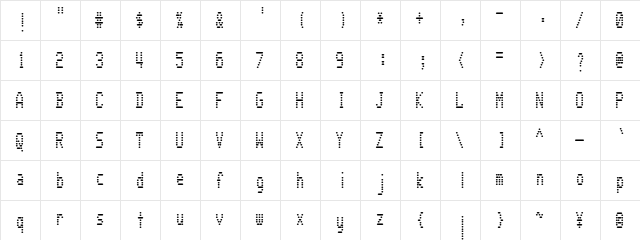
WarText Regular
| Designer | Coda Gardner |
Design Context for WarText Typeface
WarText is a composed and adaptable typeface that performs quietly and consistently across a wide range of design contexts.